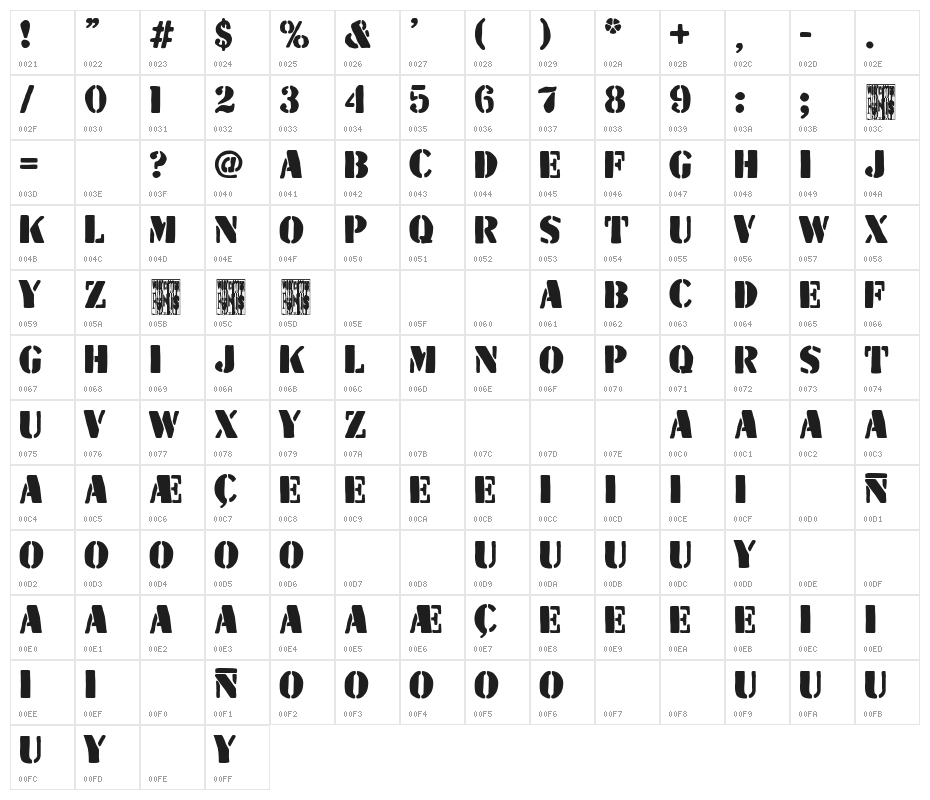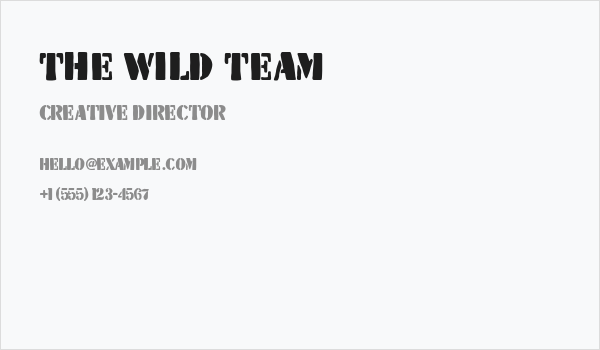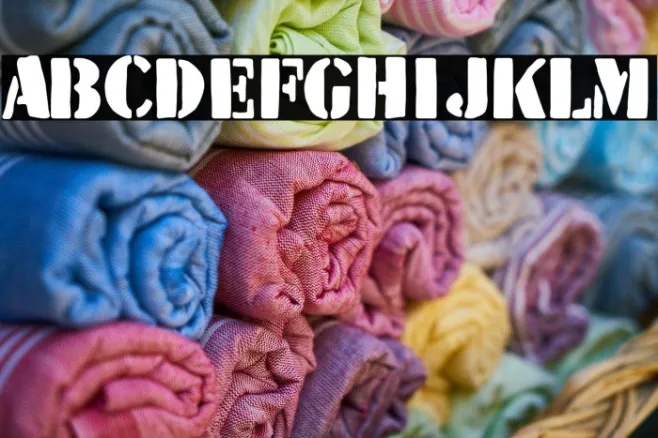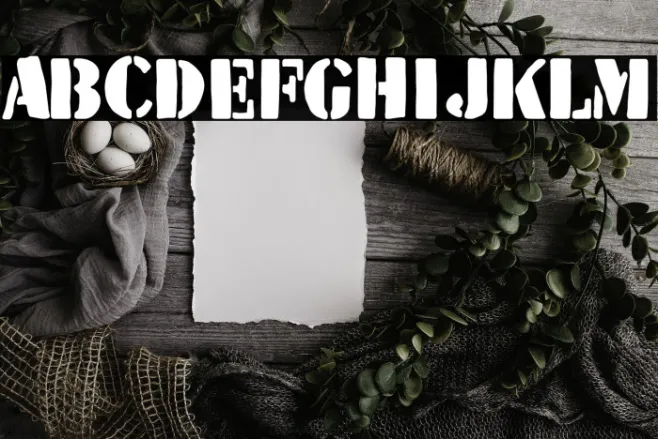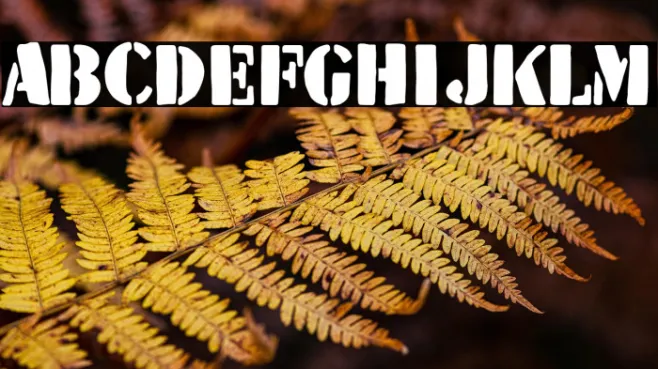
The Wild Team Font
✎ Stencil
The Wild Team Description
This font features a bold, stencil-like design with strong geometric shapes and high contrast between thick and thin strokes. The characters are robust and impactful, making them ideal for attention-grabbing designs. The uppercase and lowercase letters maintain a consistent style, with the stencil gaps adding a rugged, industrial feel. Numbers and special characters follow the same aesthetic, ensuring uniformity across all text elements.
| Overall Style | Industrial, Bold, Stencil |
| Proposed Projects | Ideal for posters, signage, branding, and any project requiring a bold, industrial look. |